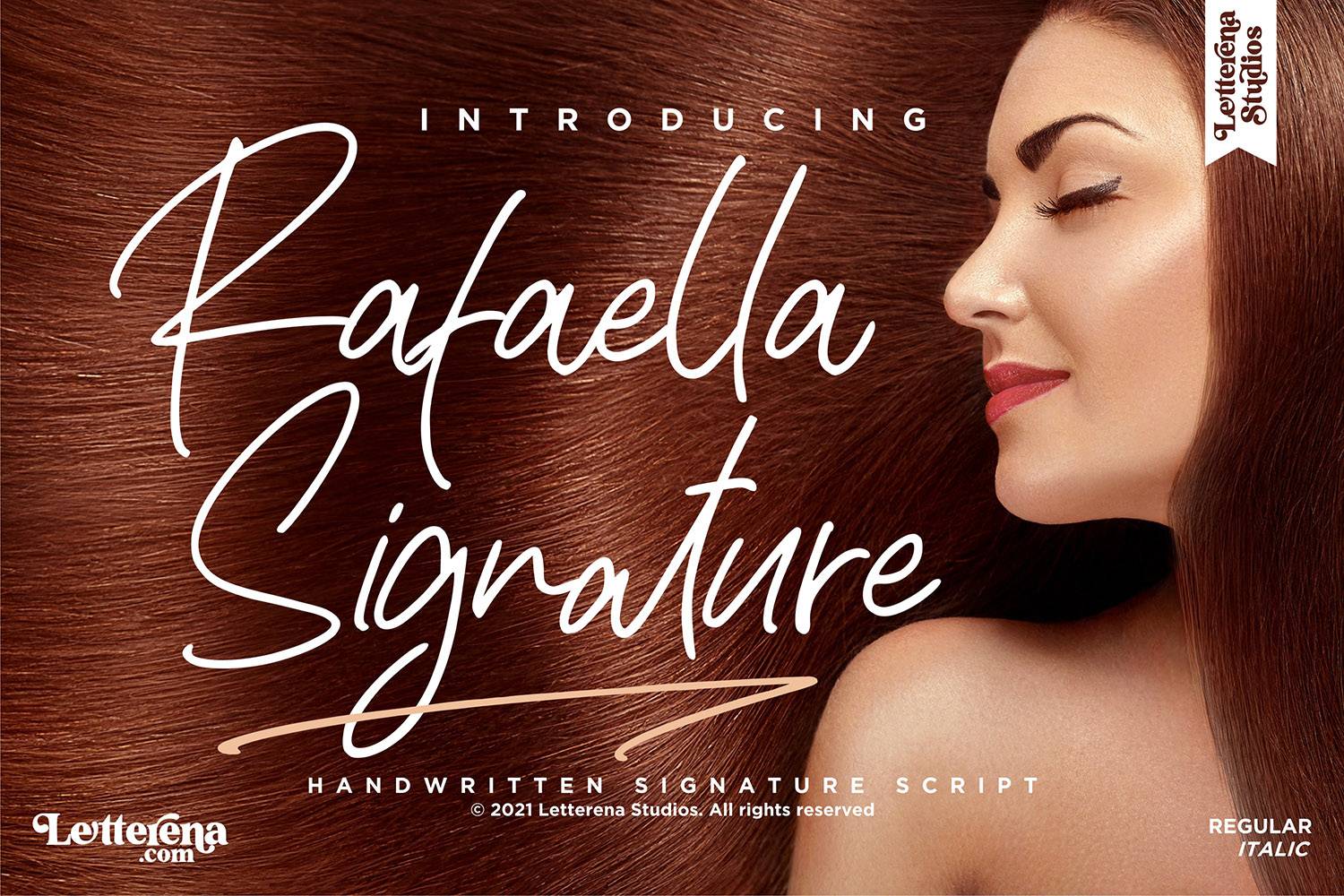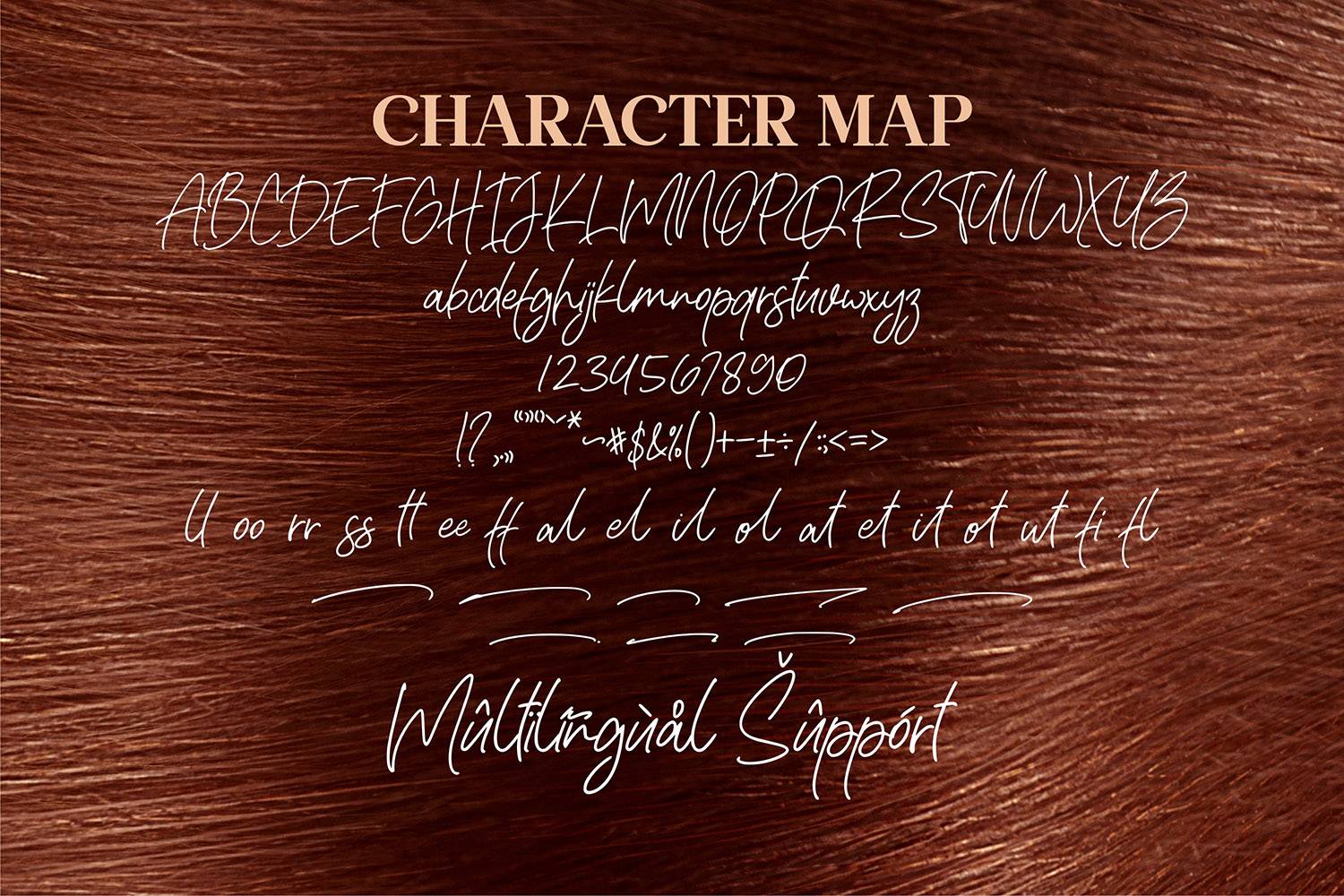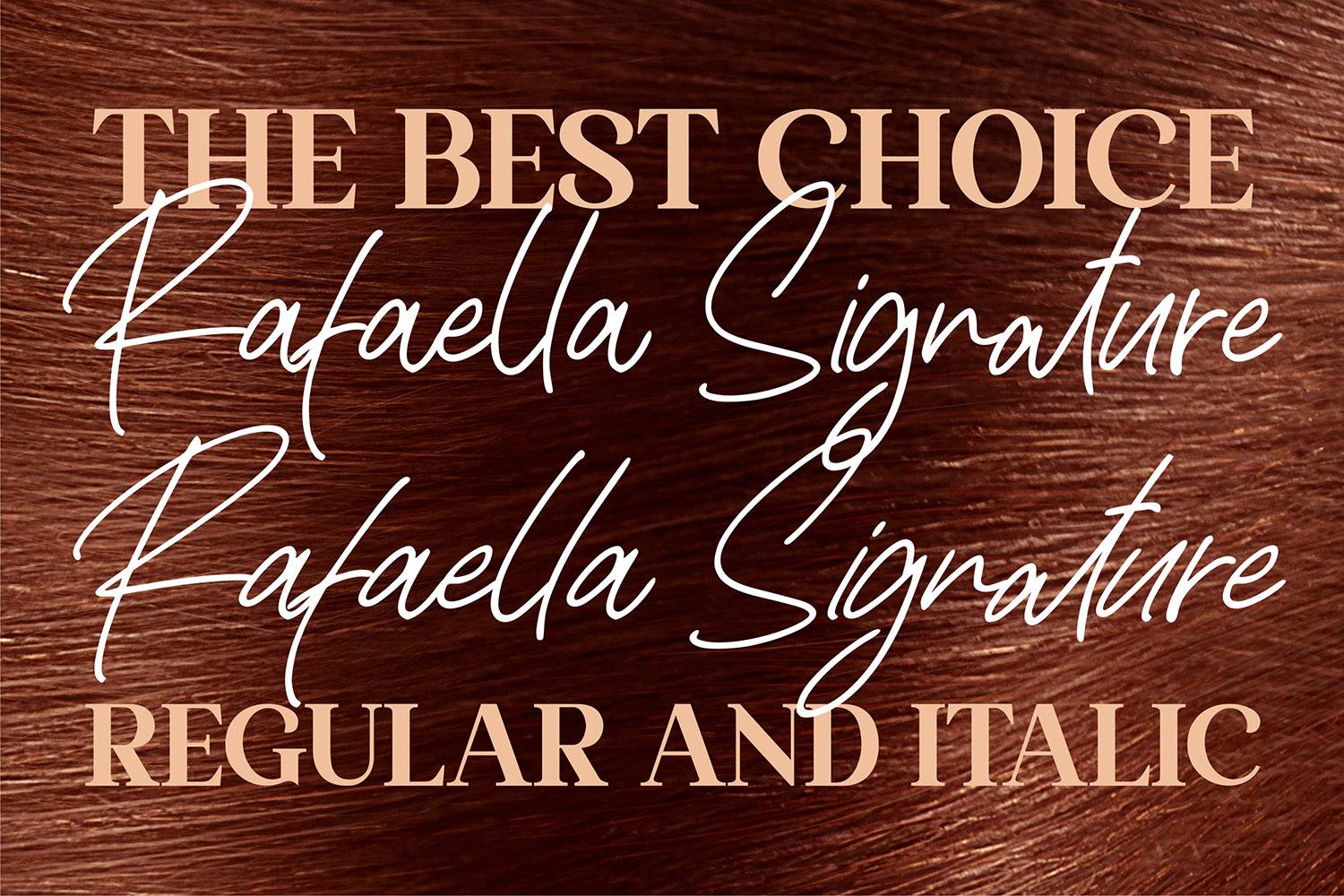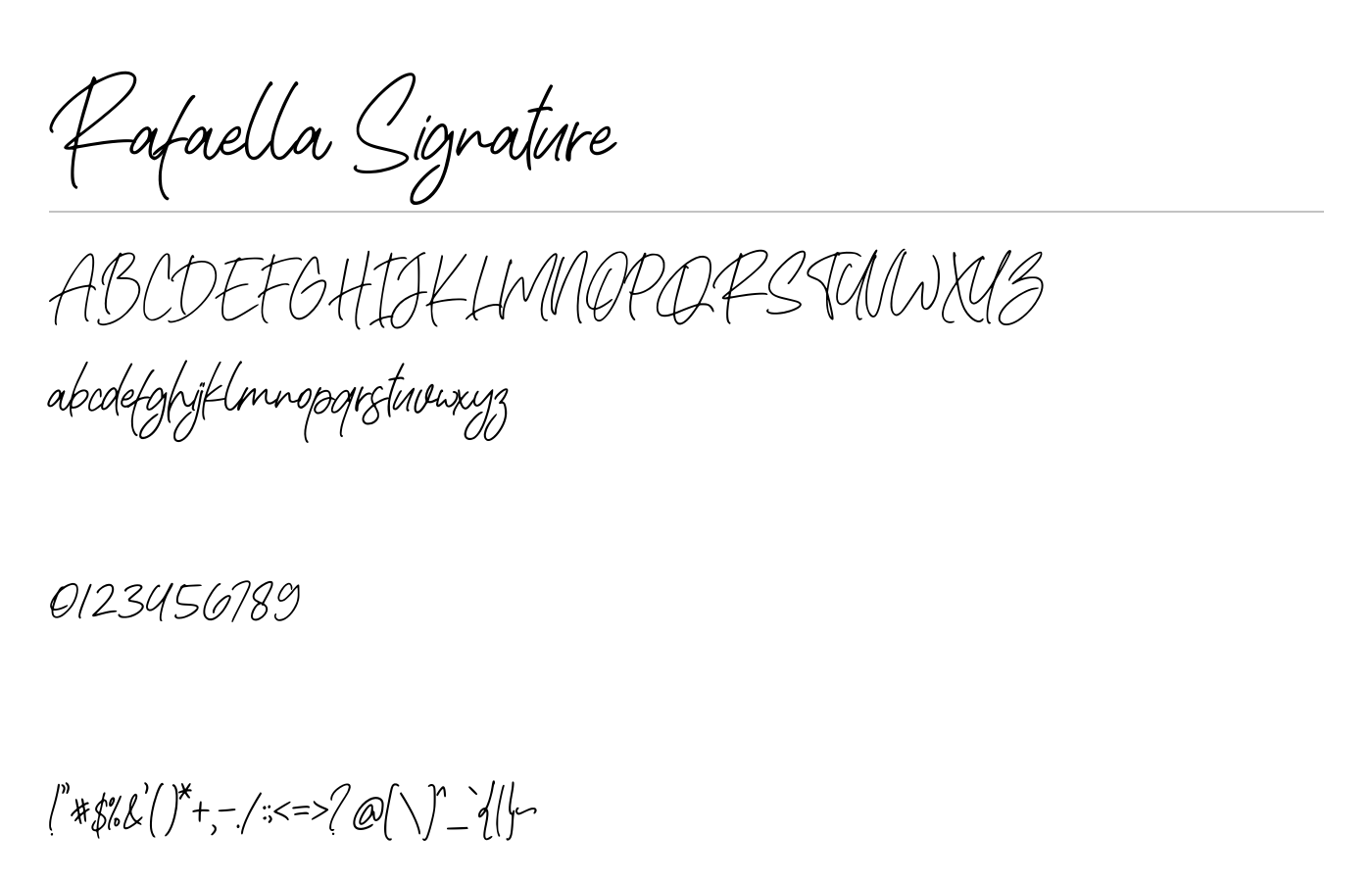
Rafaella Signature is a delicate, handwritten script font that exudes elegance with its thin, flowing strokes and natural, personal touch. Its airy, casual style works beautifully for branding, invitations, and creative projects that want to convey sophistication and warmth with a modern, approachable flair. This font shines in logos and headlines where a stylish, authentic feel is desired.
Rafaella Signature Font
About Rafaella Signature Font
| Font family | Rafaella Signature Font |